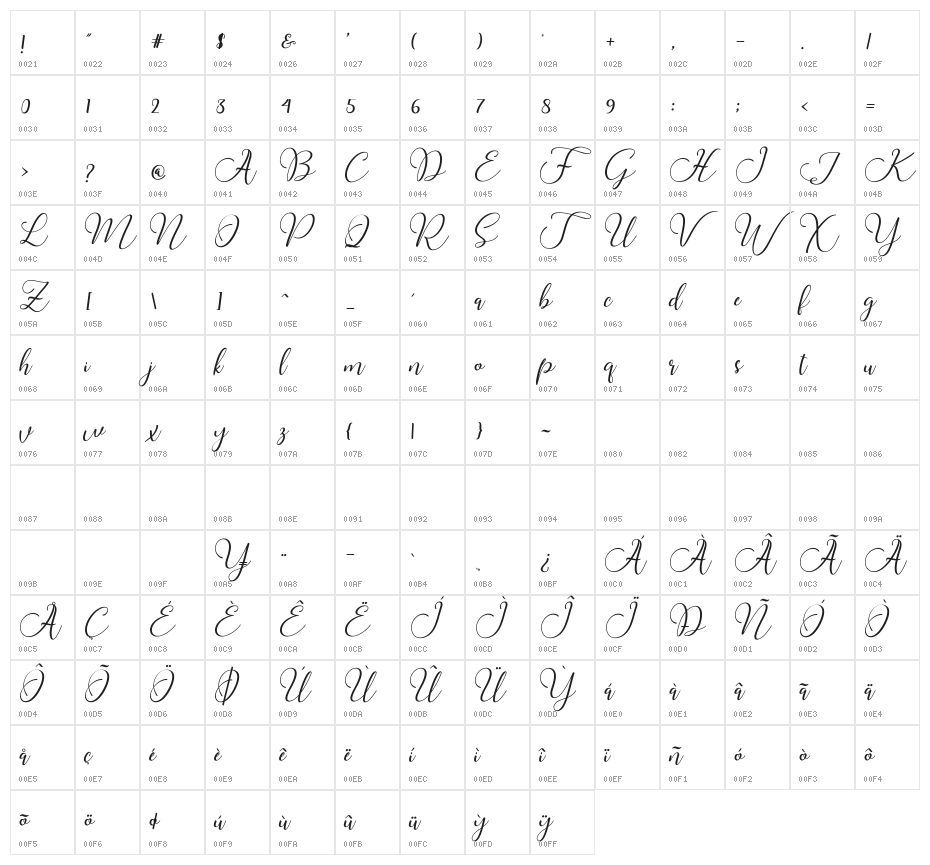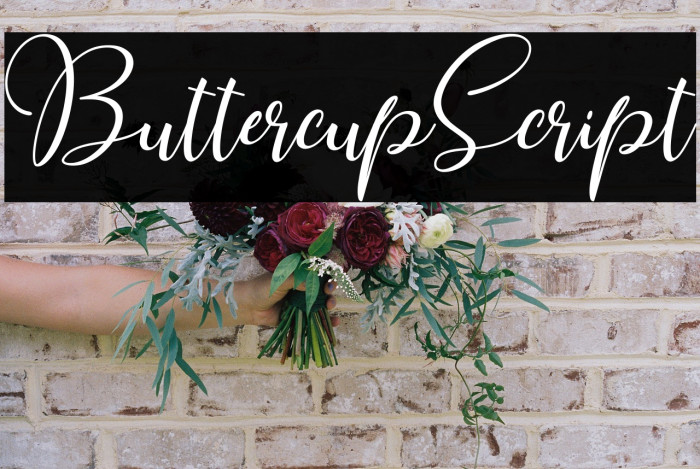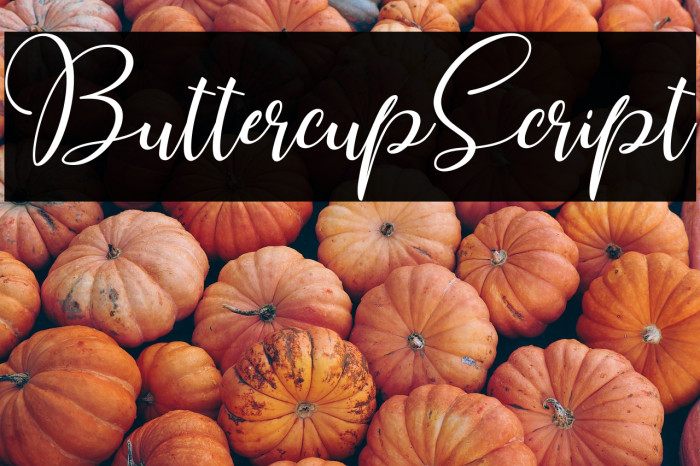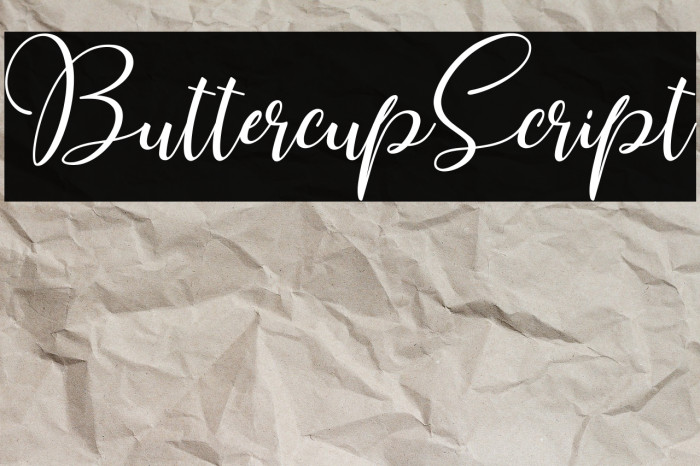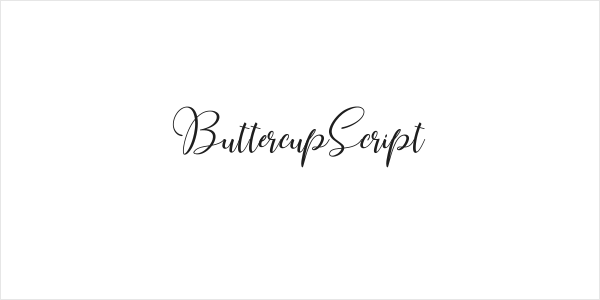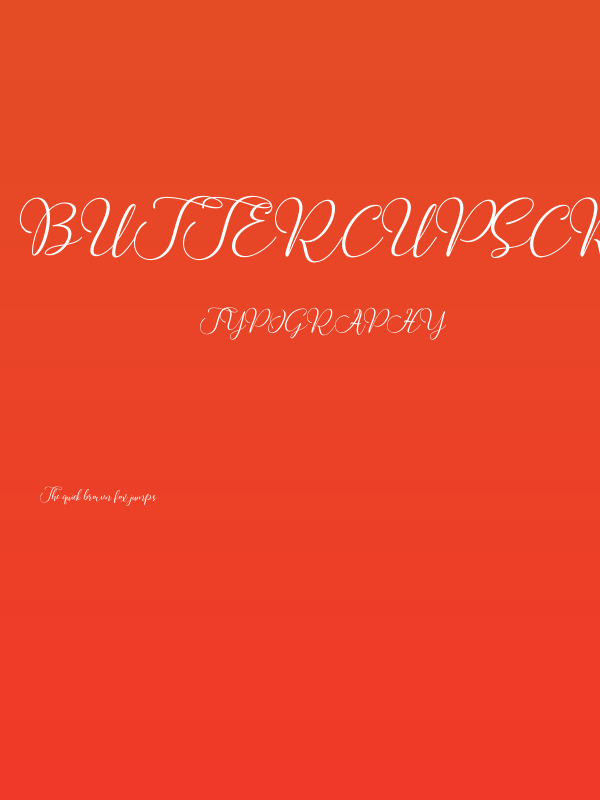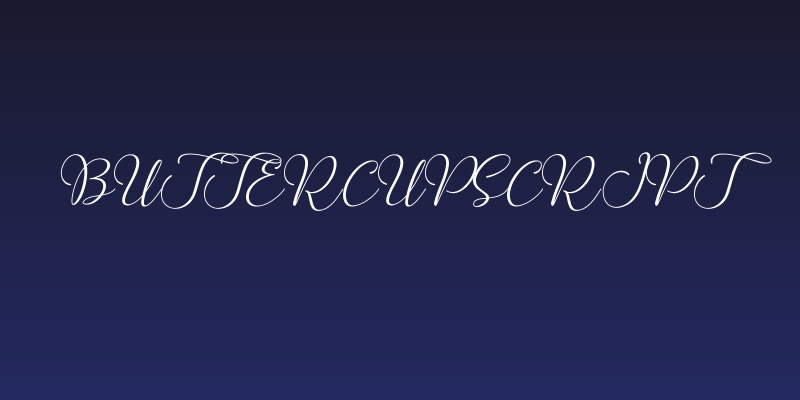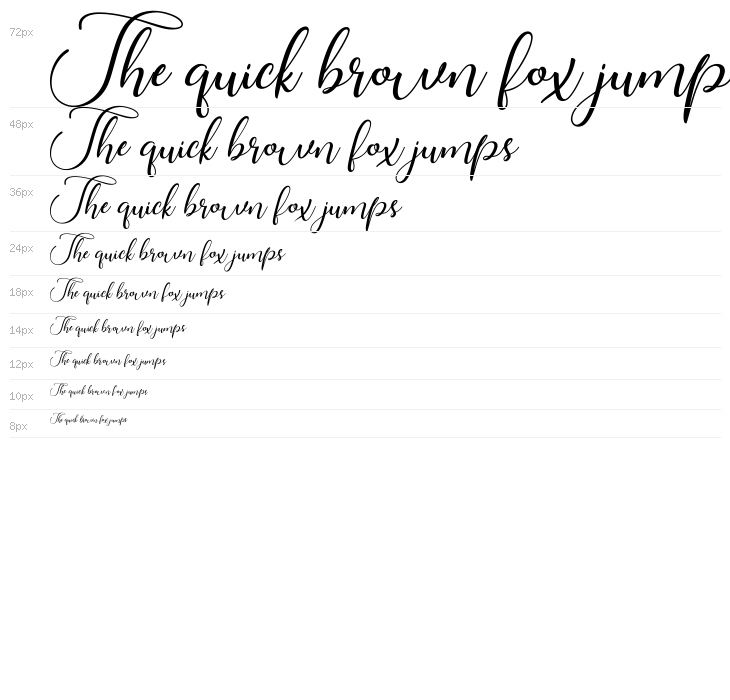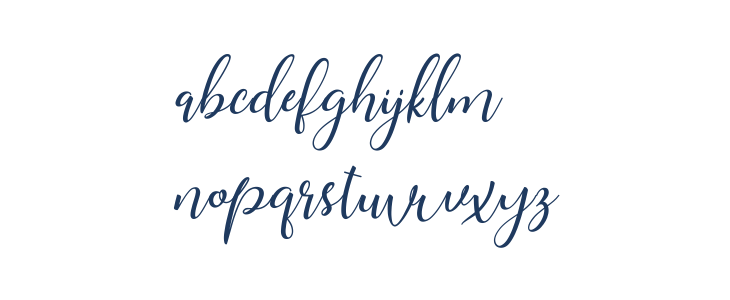
ButtercupScript Font
ButtercupScript Description
This elegant script font features flowing, cursive letterforms with a graceful and sophisticated appearance. The uppercase letters are characterized by their sweeping curves and delicate loops, giving a sense of fluidity and movement. The lowercase letters maintain a consistent style, with smooth connections and a slightly more pronounced thickness, adding to the font's legibility and charm. The numerals are designed with a similar flair, ensuring they complement the overall aesthetic. Special characters are thoughtfully integrated, maintaining the font's cohesive and stylish look. This font is perfect for projects that require a touch of elegance and sophistication.